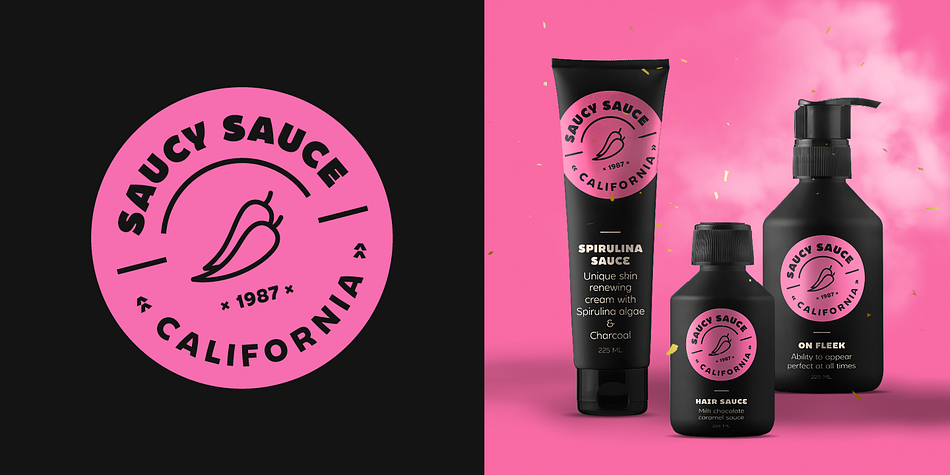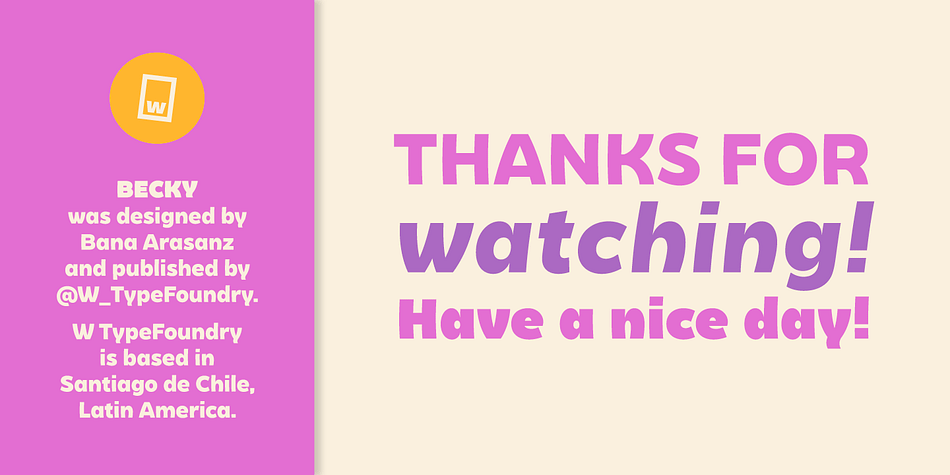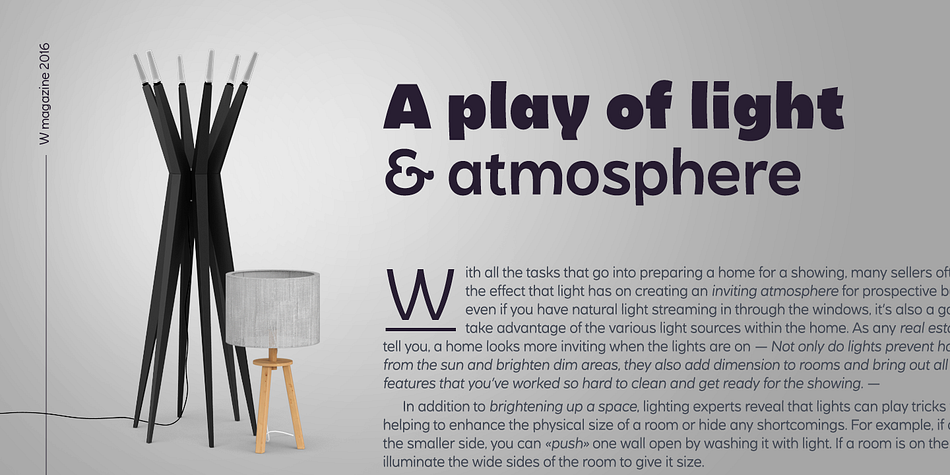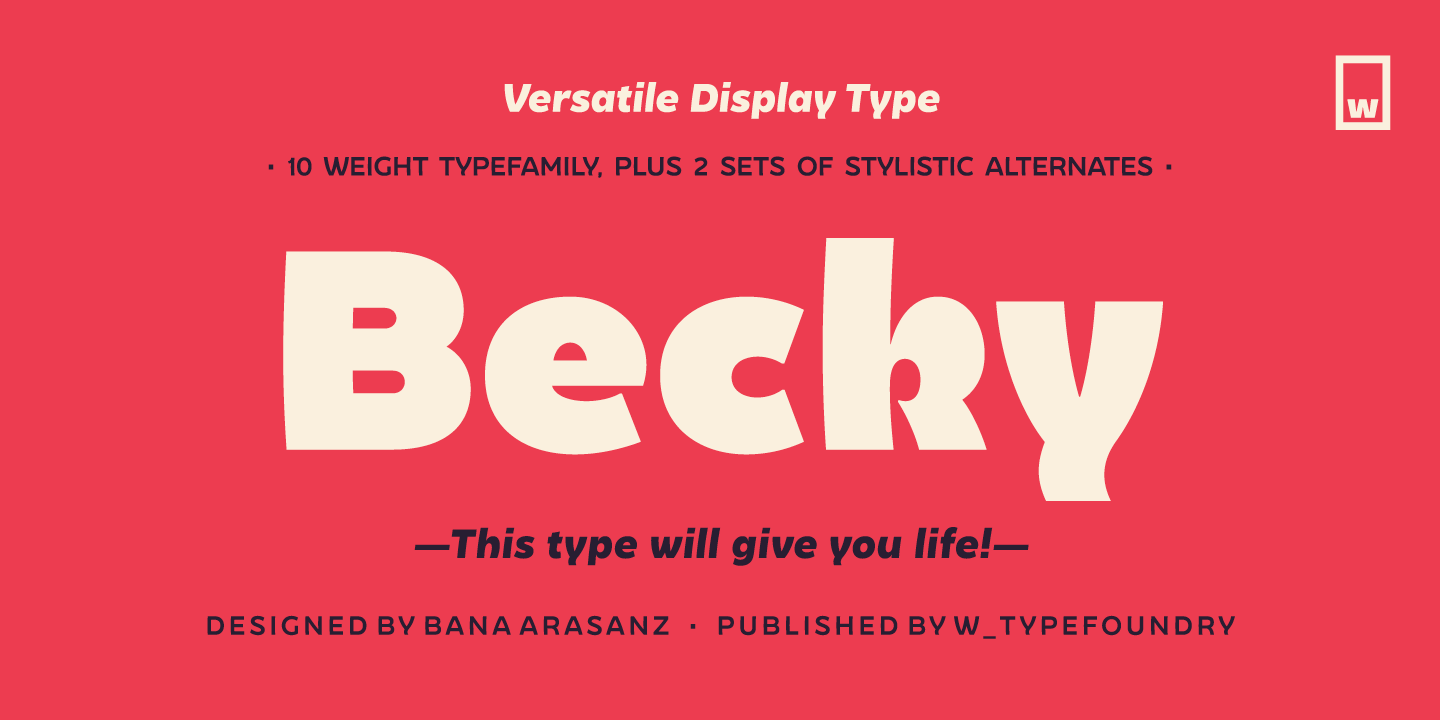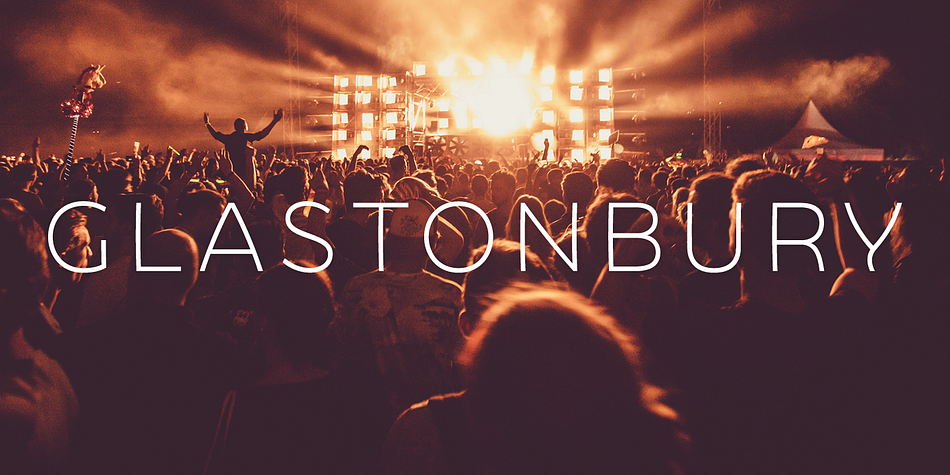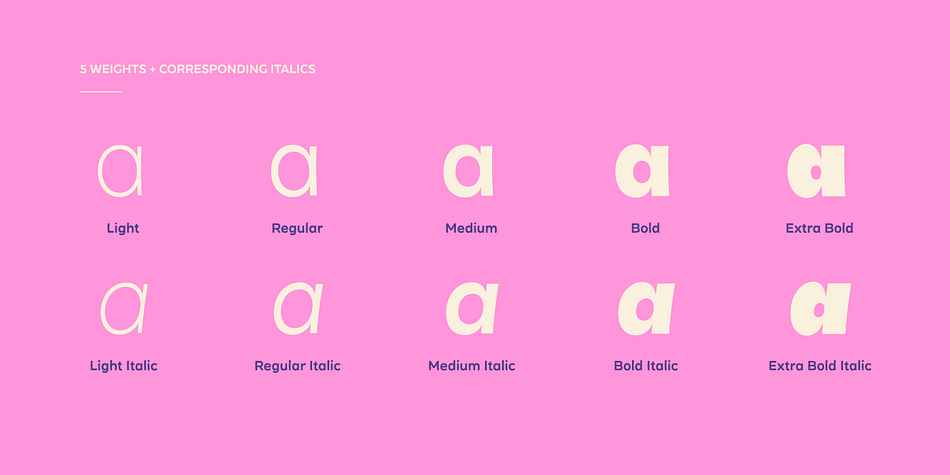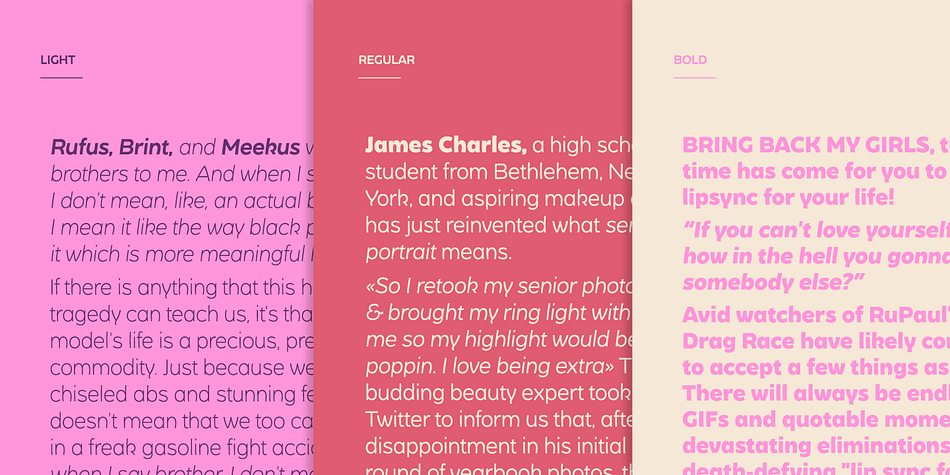
Becky
Designed by Bana Arasanz, Becky is a sans serif font family. This typeface has ten styles and was published by W Type Foundry.
Becky is a versatile display type designed to appeal to to a young audience of creative, up-to-date people.
Geared towards the world of advertising and retail.
It is well-suited for large headlines, branding, logos, publishing and short texts.
With a modern look inspired by such geometric classics as Futura and an overall edgy, informal quality (seen in details like the subtle curve of its verticals), Becky stands out as a fun, unique type.
Becky is a 10-variant type family that comes in 5 weights: light, regular, medium, bold and extra bold.
It features 445 characters in total.
Becky features 2 alternative stylistic sets: SS1 in which the diagonals in the letters X, Y, V, W, R, K, y,x,v,w and k shift from curved to straight in order to achieve a more formal look, especially useful for smaller texts.
SS2 offers alternate glyphs for I, E, J, e, j and t, further expanding the possibilities of the typography.
Designed by Bana Arasanz.
Published by W Foundry.
Becky is a ten font, sans serif family by W Foundry.
Becky  has extensive OpenType support including 2 additional stylistic sets and Stylistic Alternates making it a powerful font for experienced designers.
Becky is designed by Bana Arasanz.